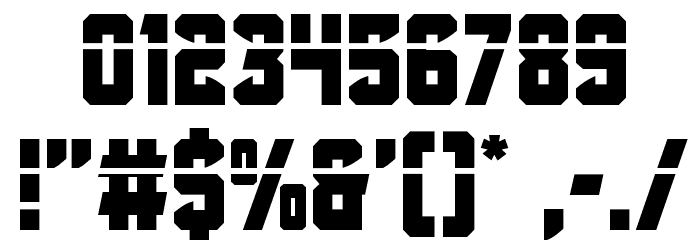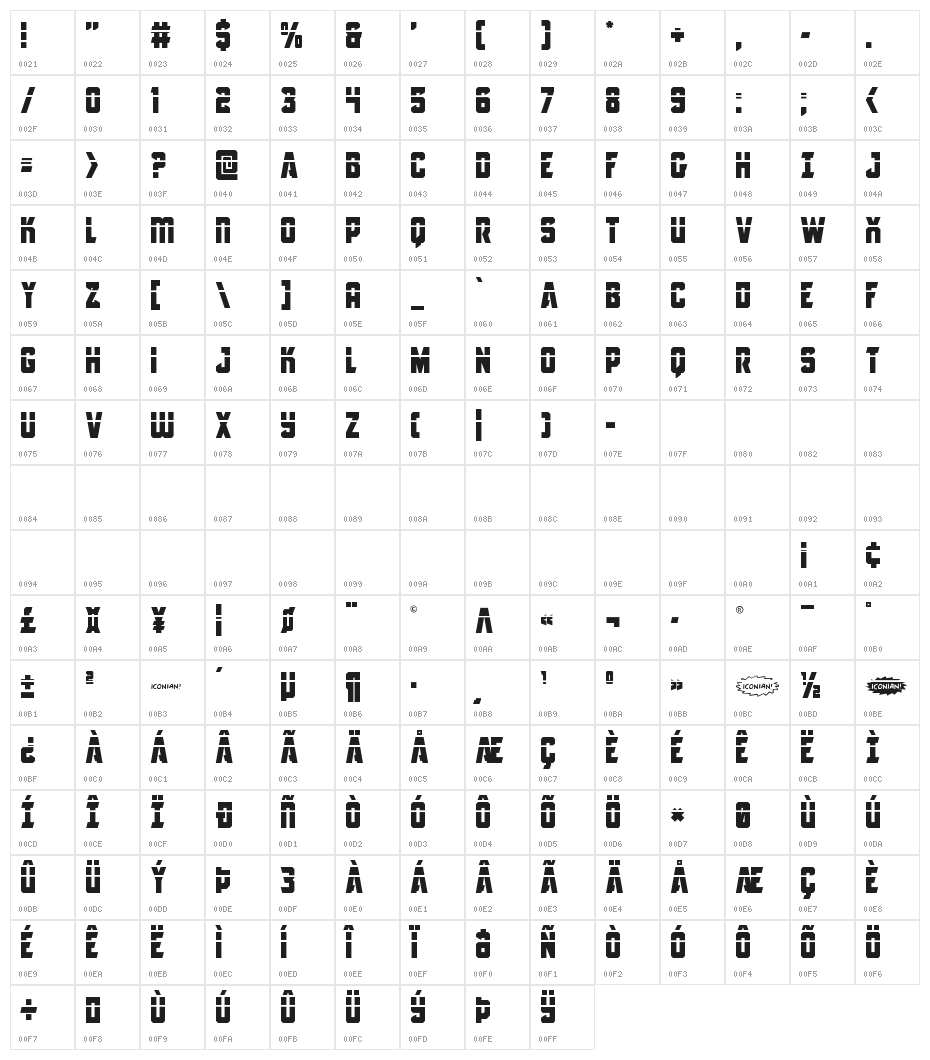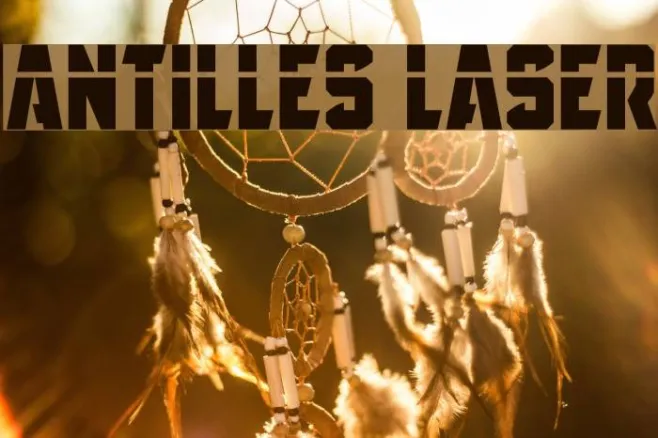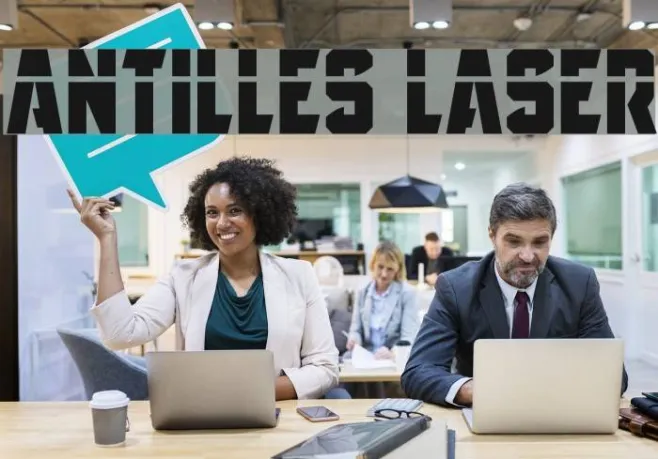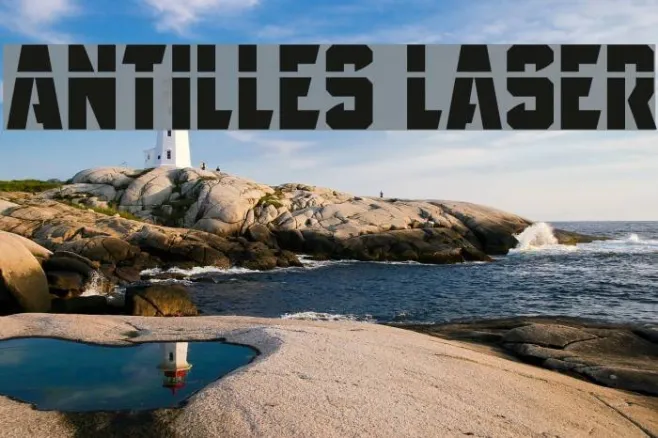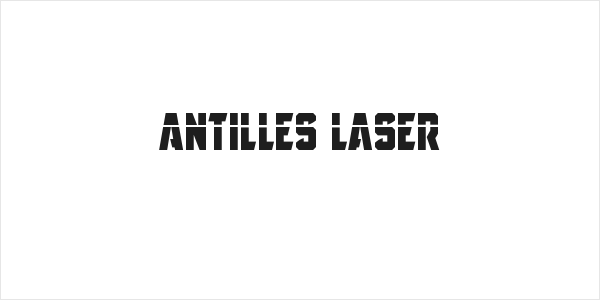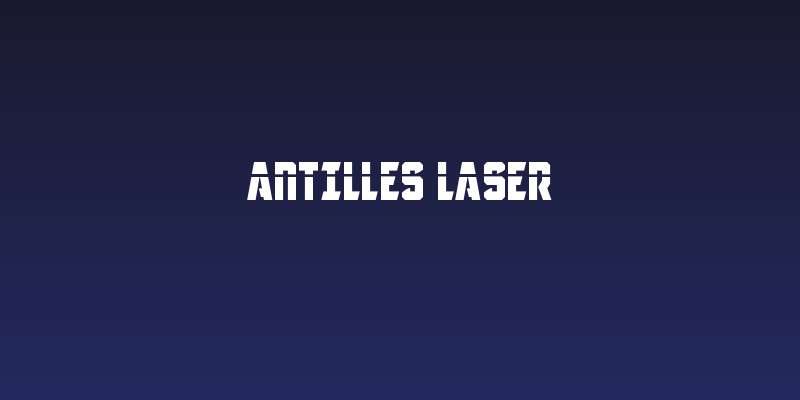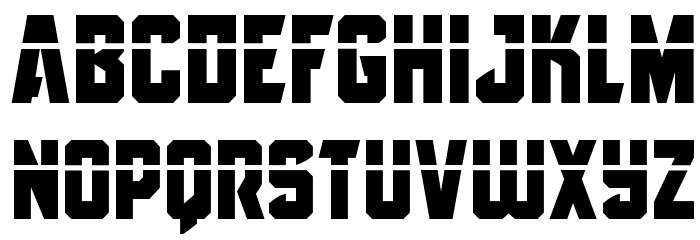
Antilles Laser Font
Antilles Laser Description
This font features a bold, geometric design with a futuristic and industrial feel. The characters are constructed with sharp angles and straight lines, giving them a blocky appearance. The uppercase and lowercase letters maintain a consistent style, emphasizing uniformity and strength. The numbers and special characters follow the same design principles, ensuring a cohesive look across all glyphs. The font's distinct style makes it suitable for attention-grabbing headlines and titles. Its robust and solid form conveys a sense of power and modernity, making it ideal for projects that require a strong visual impact.